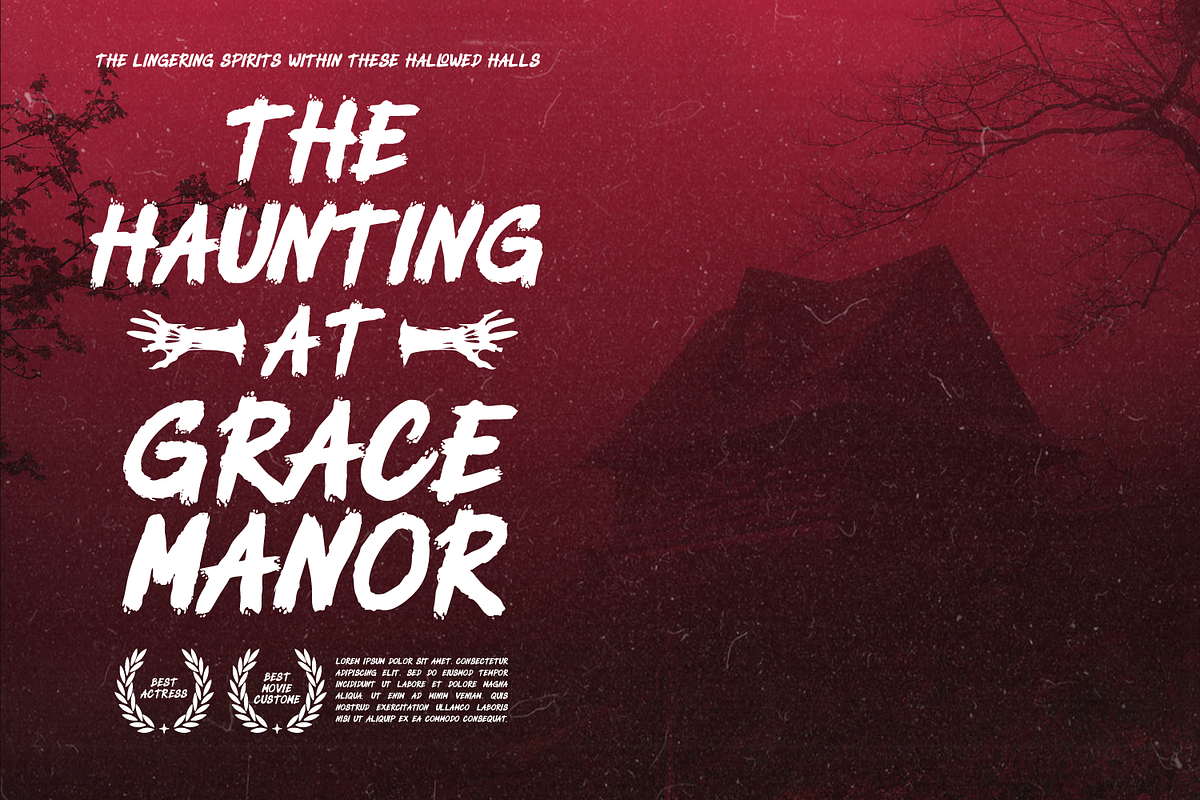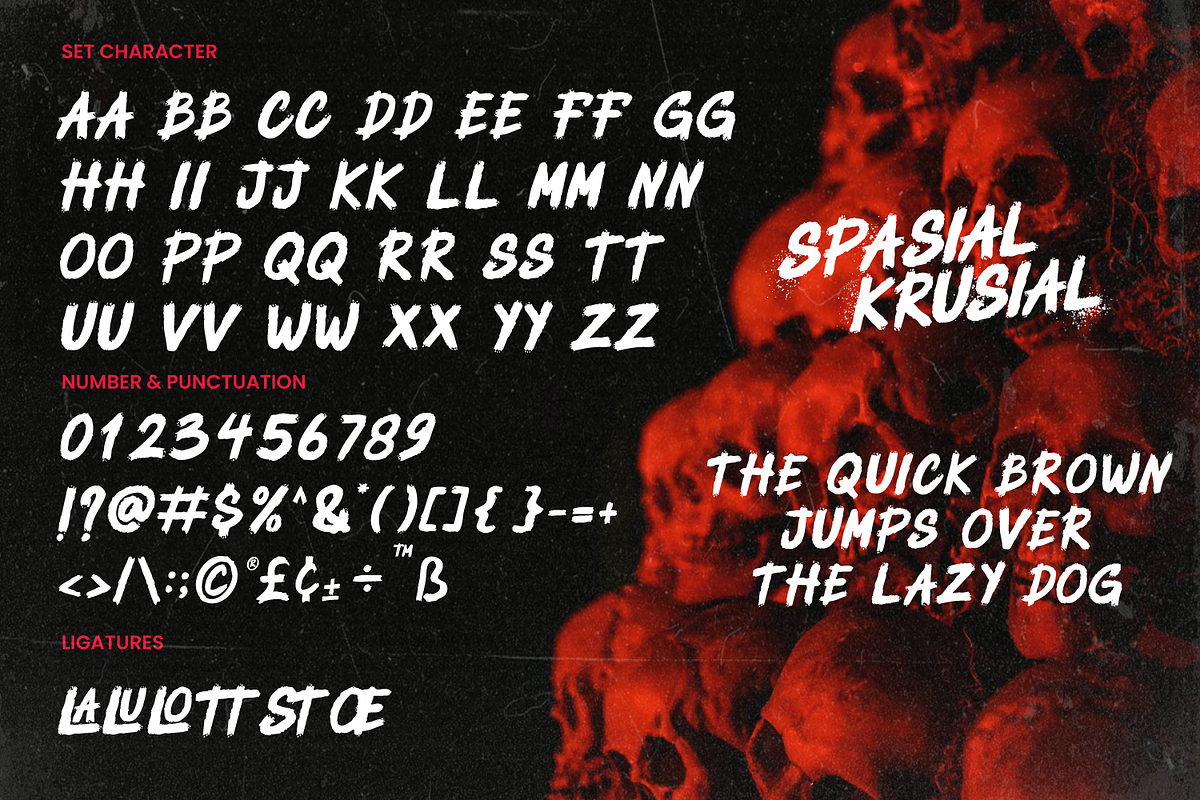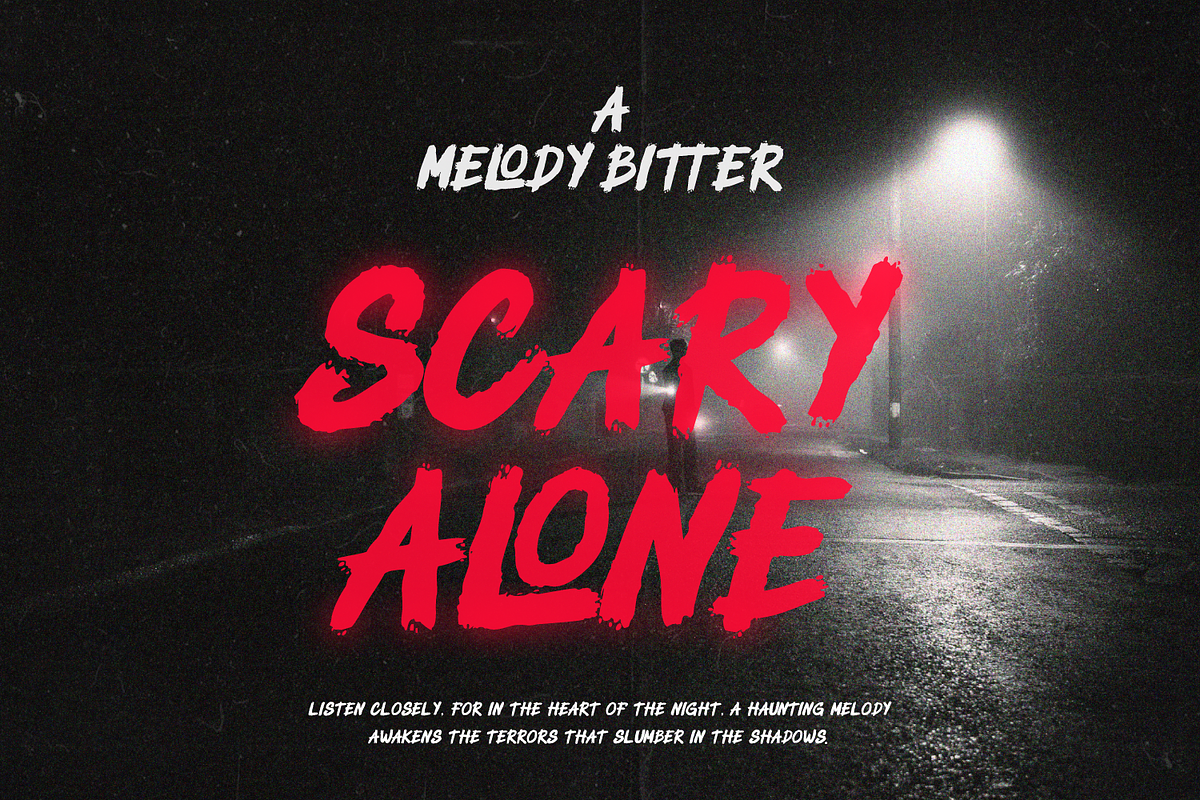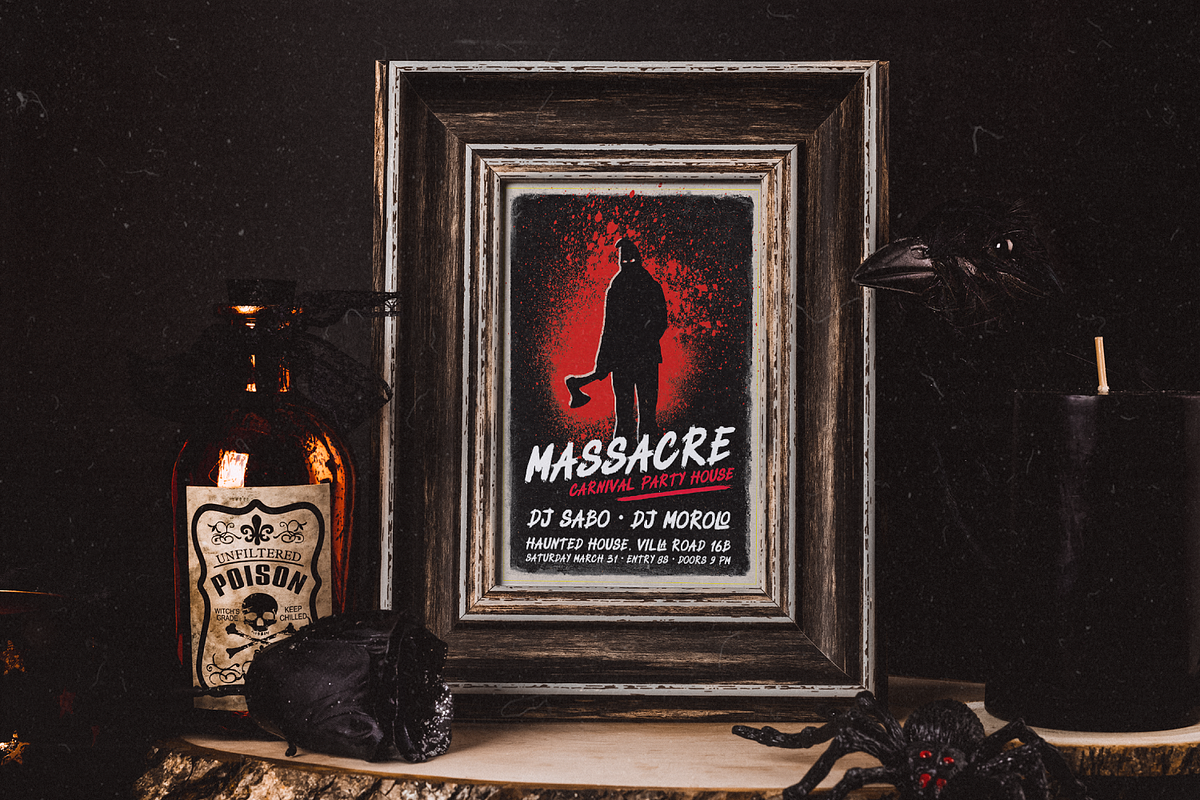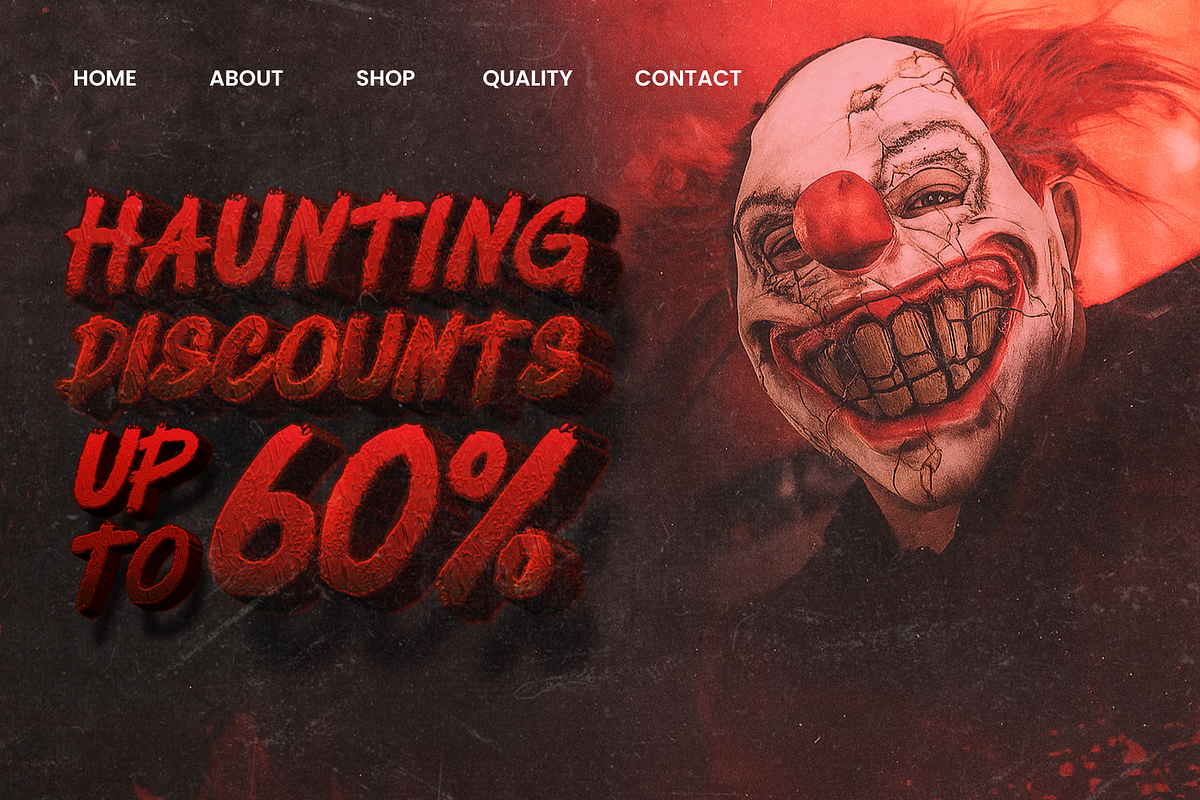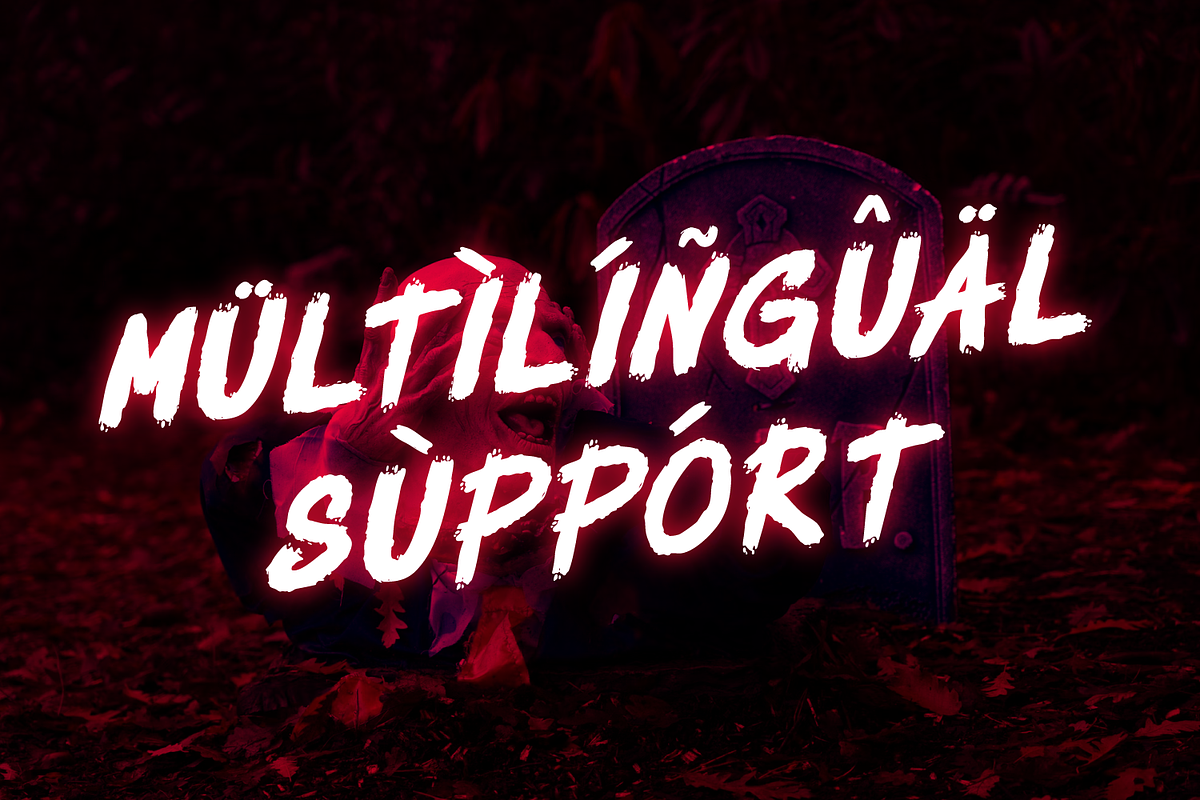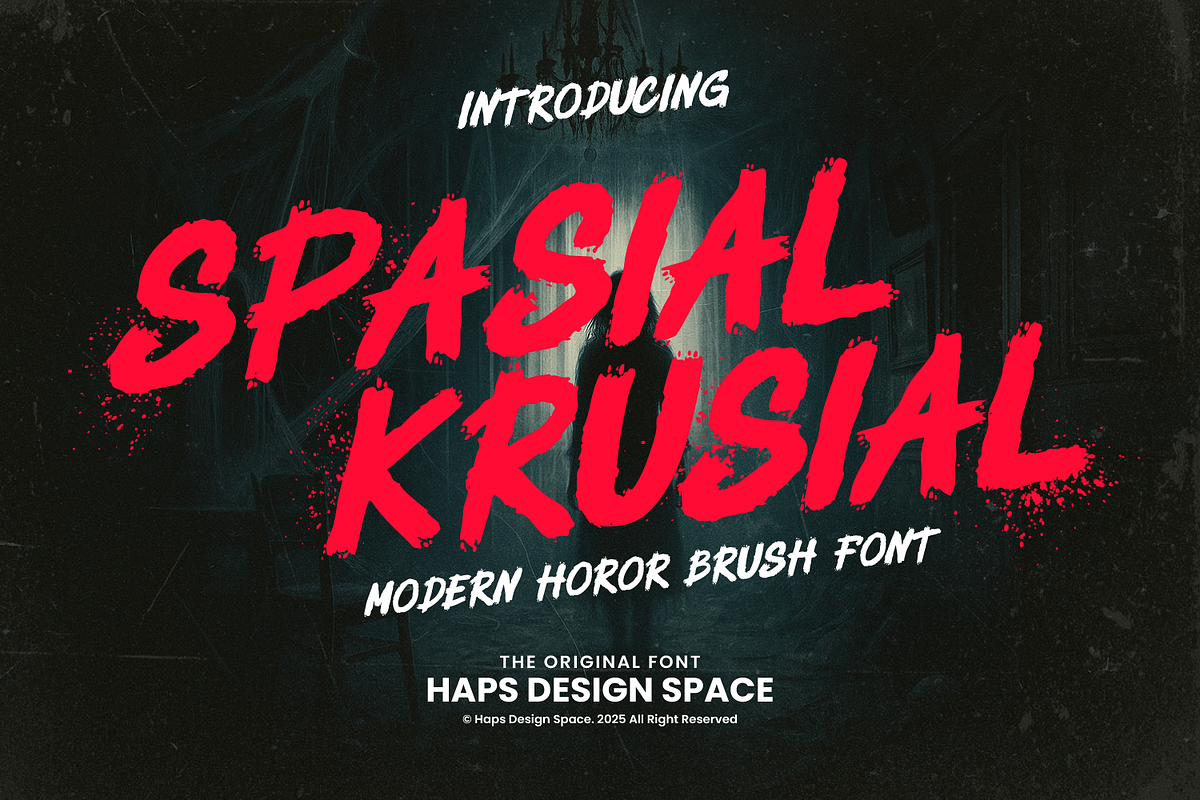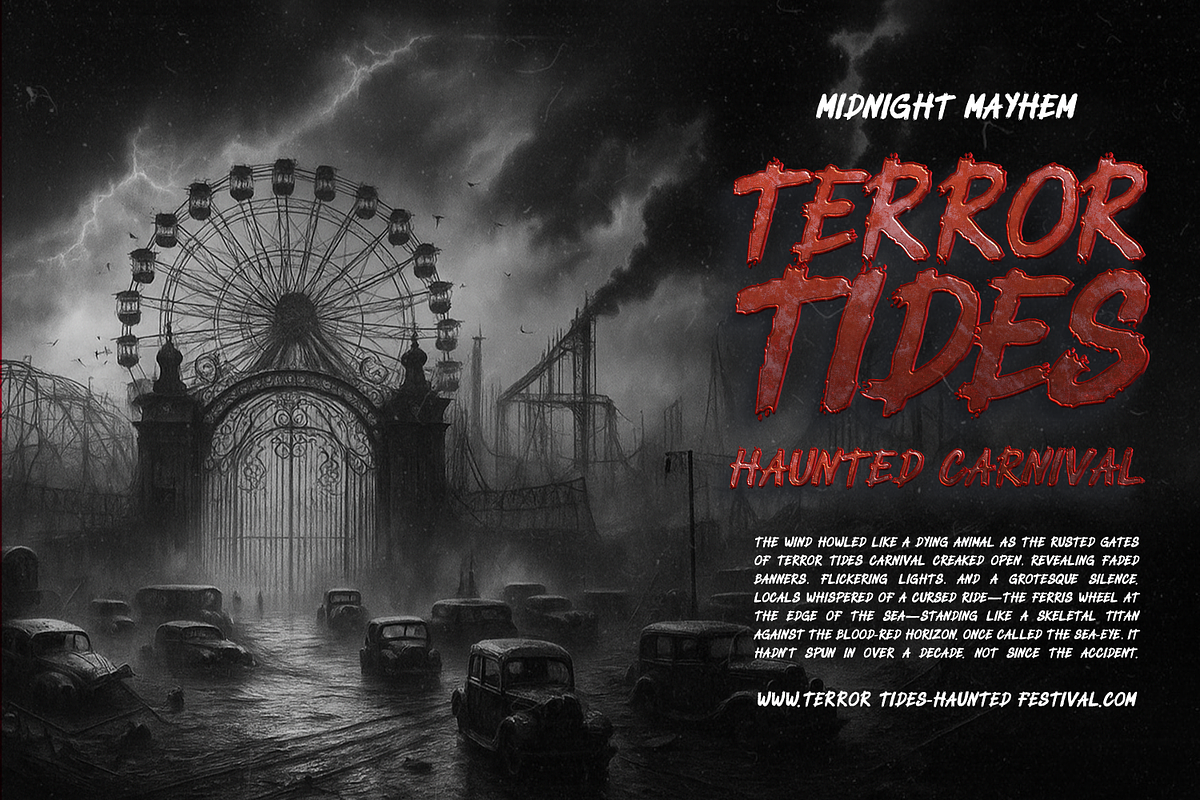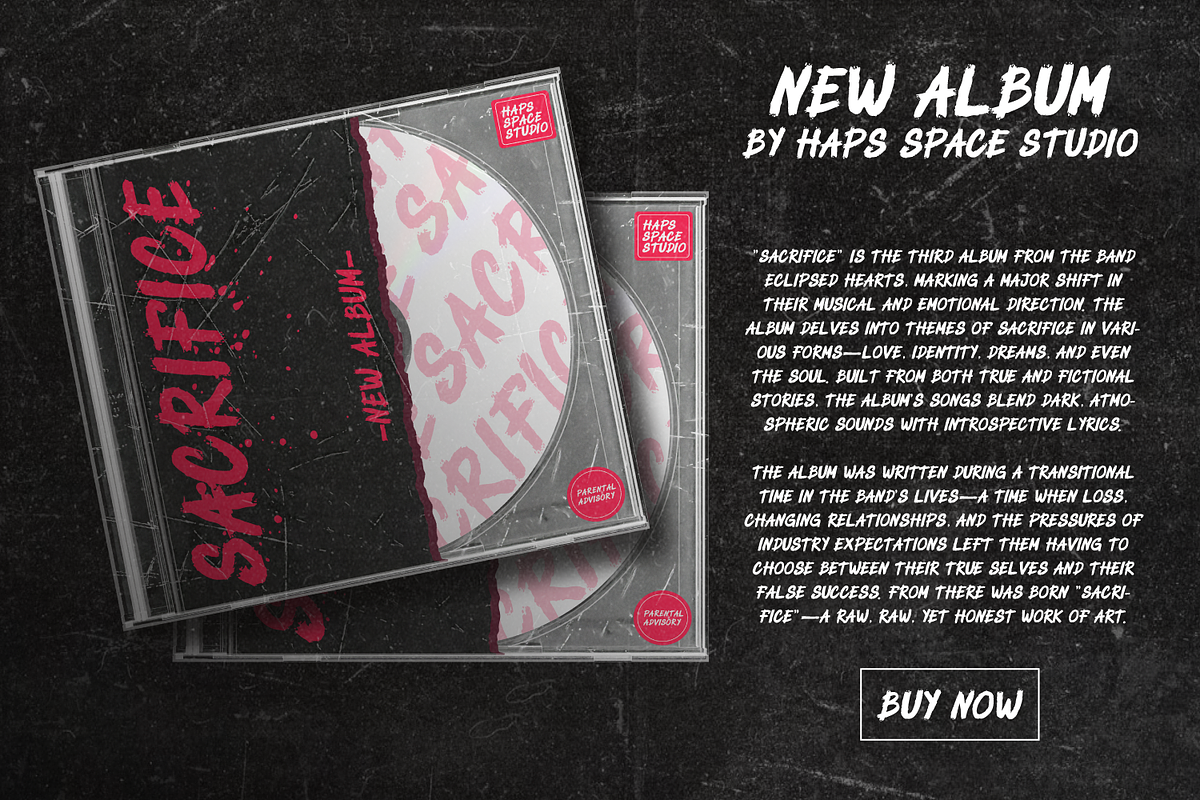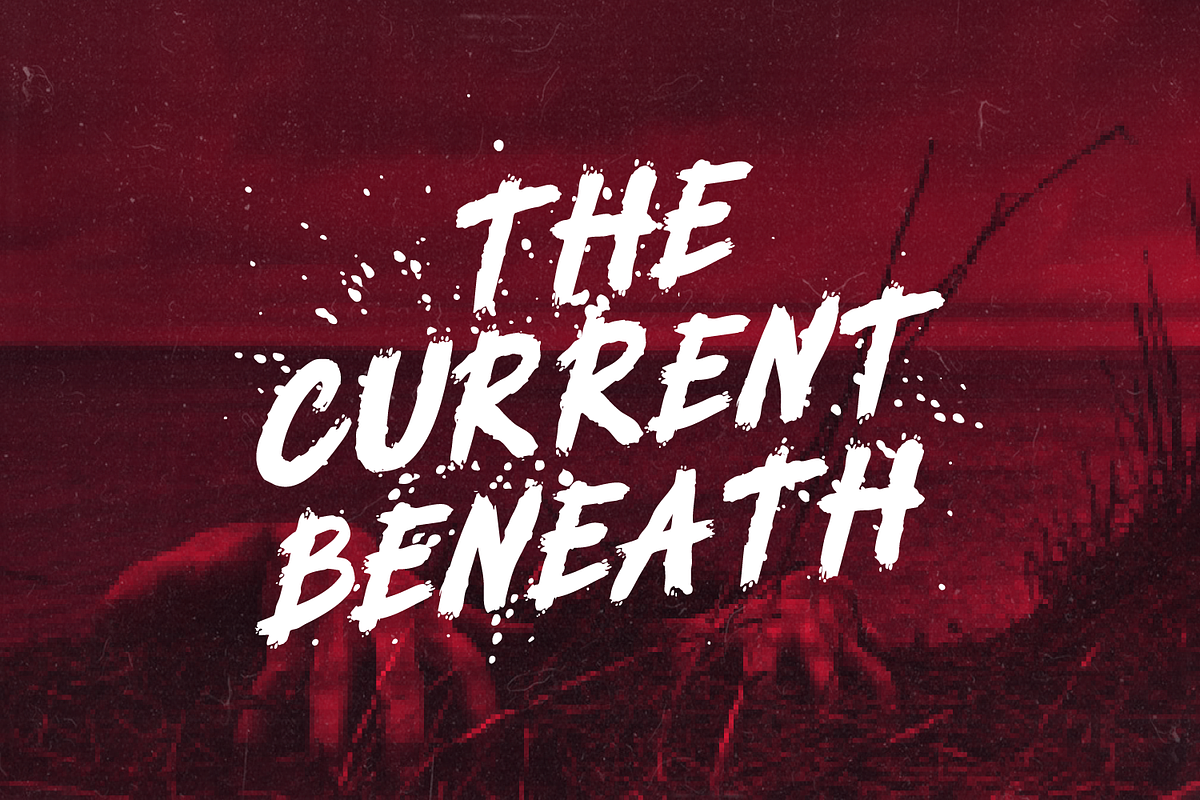
Spasial Krusial Horror Brush
Spasial Krusial is a terrifyingly expressive modern brush font designed to evoke fear and suspense. With intense brush strokes and splatter textures, this font is perfect for horror movie posters, Halloween merchandise, game titles, thriller book covers, and anything that needs a dark, chilling edge.
This typeface blends raw energy and eerie atmosphere, delivering an authentic horror aesthetic that grabs attention. Whether used in large titles or striking visuals, Spasial Krusial ensures a sinister and unforgettable impact.
- Uppercase Letters
- Horror movie titles
- Haunted house flyers
- Scary game UI or splash screens
- Halloween event promotions
- Thriller book covers
- Grunge, edgy designs